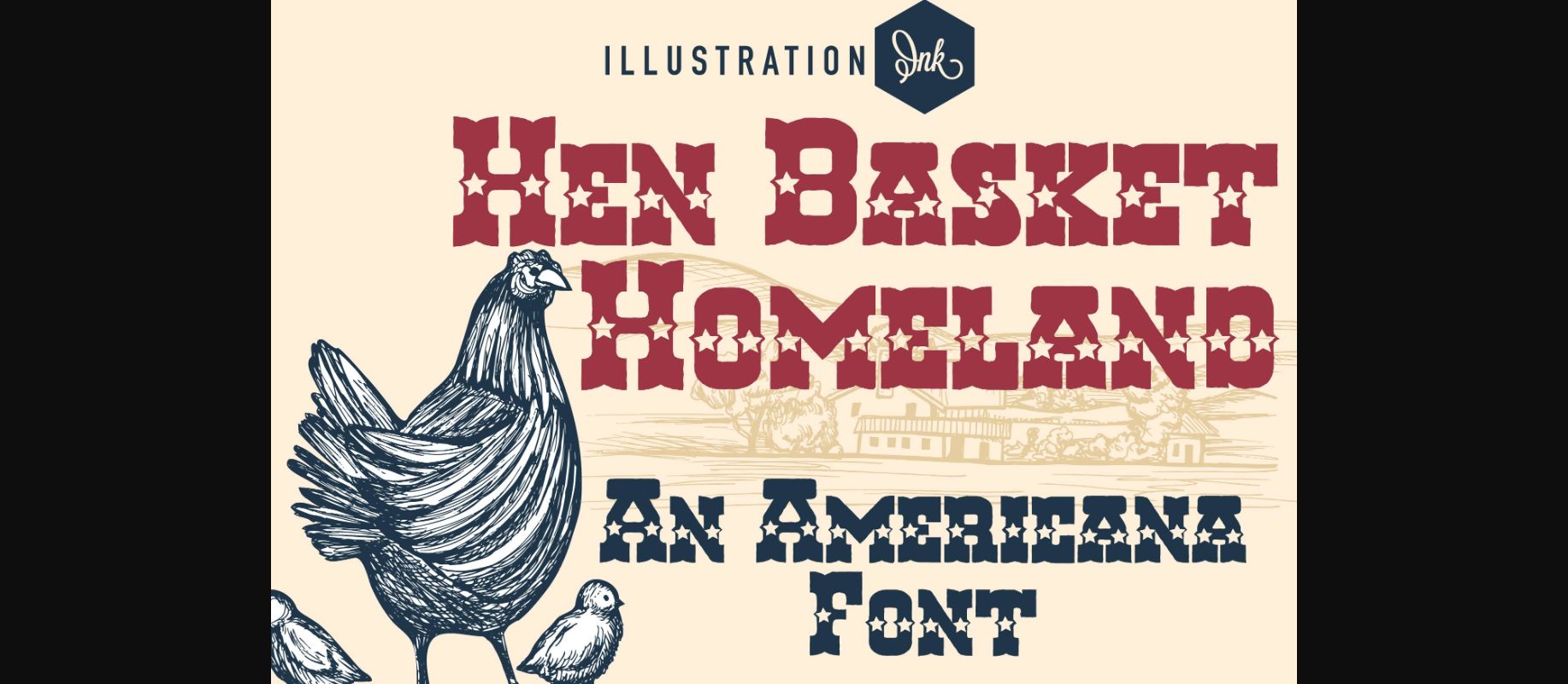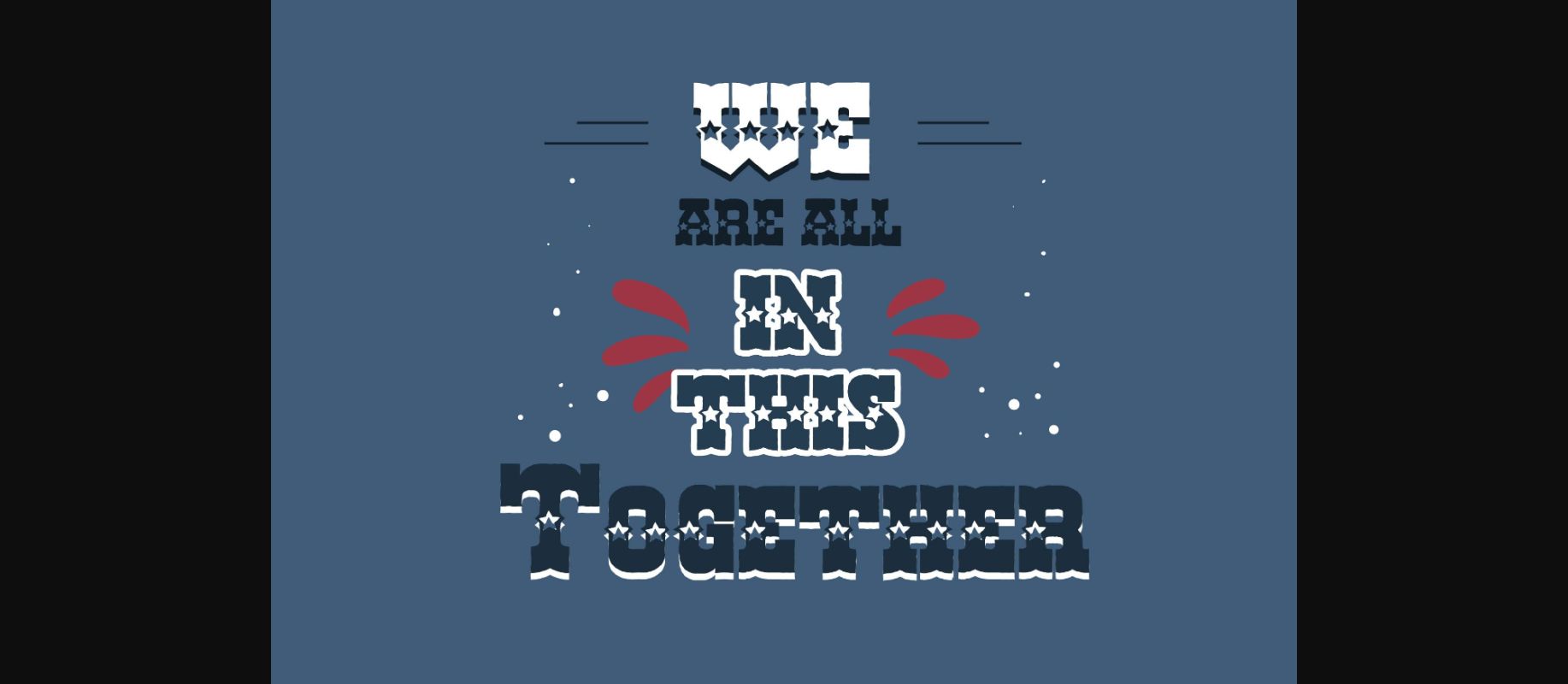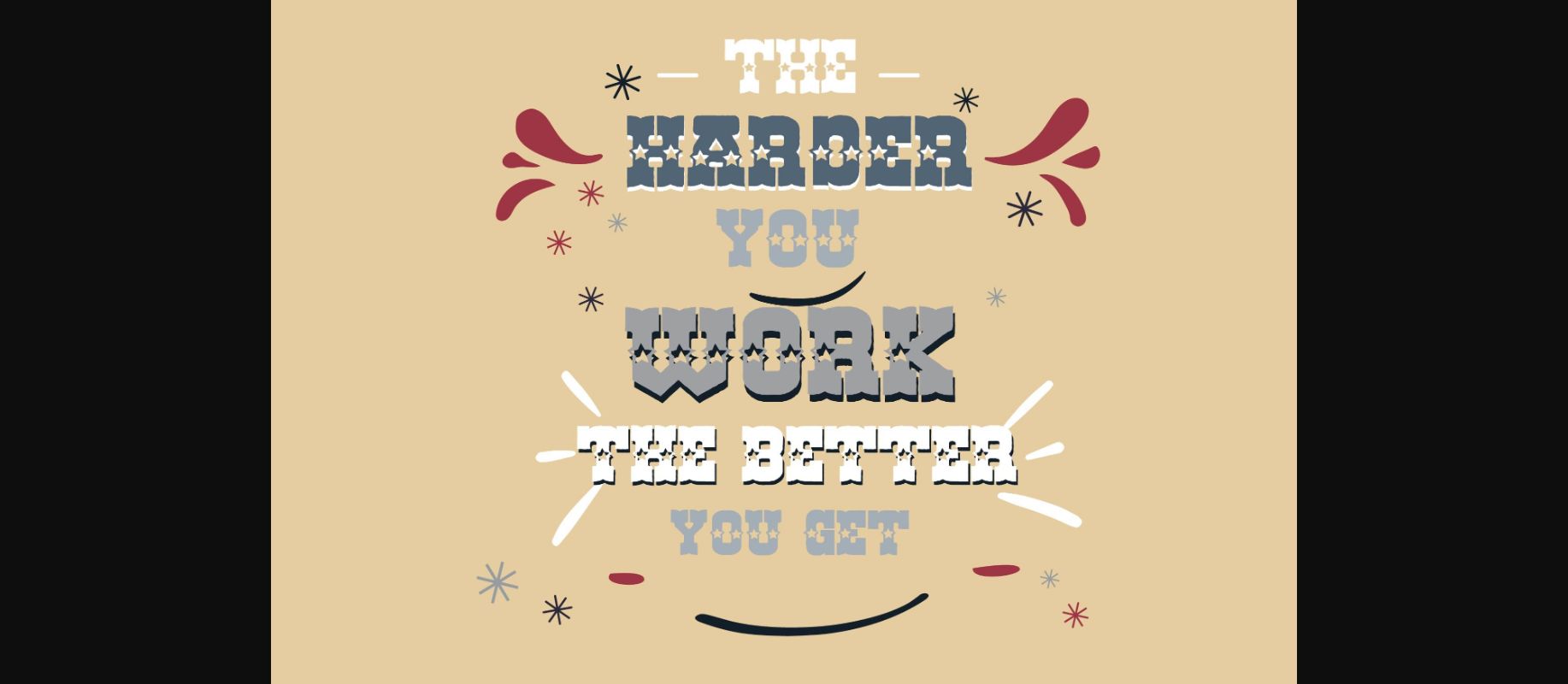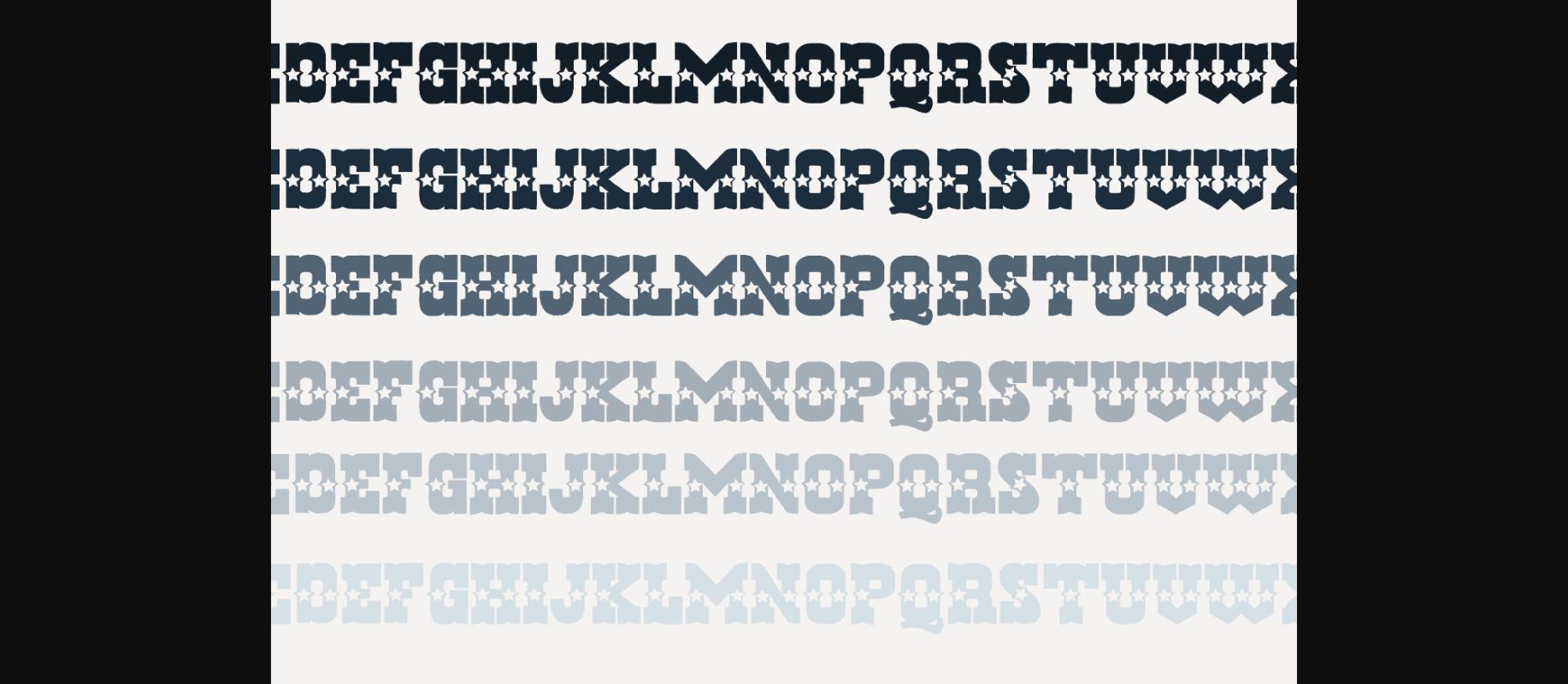
About Hen Basket Homeland Font
Hen Basket Homeland font combines classic Western aesthetics with a touch of celestial flair. This captivating typeface features bold, rugged letterforms reminiscent of the Old West, while delicately scattered stars throughout the design add a touch of whimsy and enchantment.